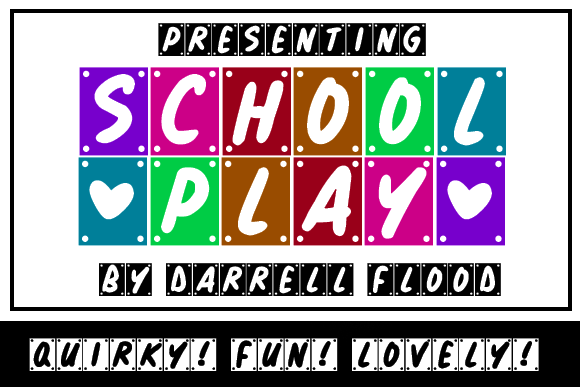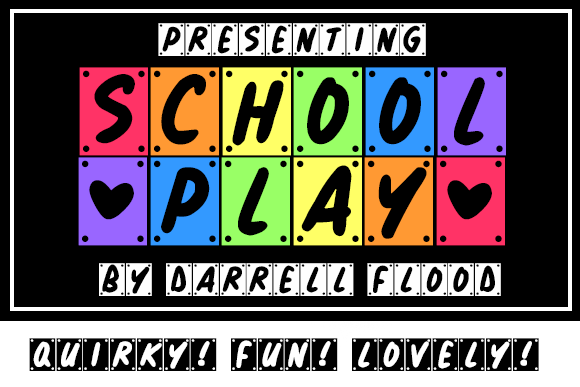
Introduction to School Play Font
School Play is a fun, decorative font in a hand-drawn poster style.
Perfect for classroom themes or special events .
Key Features of School Play Font